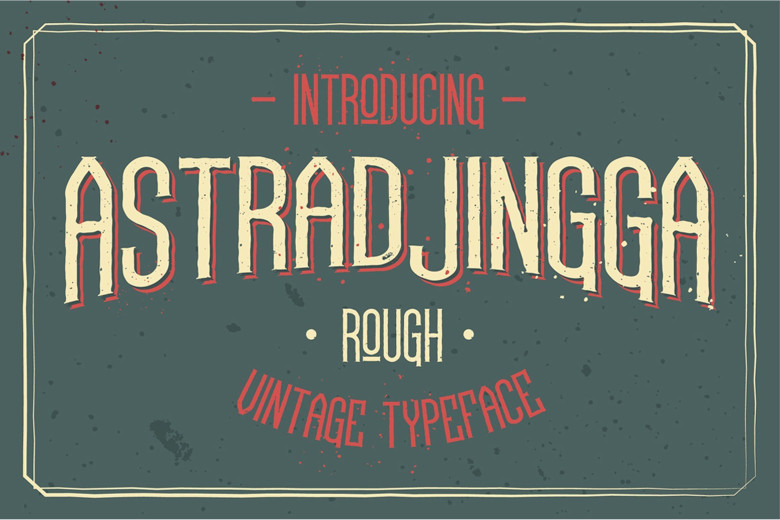
Astradjingga Rough Font
AstradjinggaRough is a vintage font thin, rough and character. Rough Astradjingga very suitable for making design themed vintage, retro and whatever themed custom culture. Suitable for logo, product names packages, labels, old fashioned coffee shops, bars and everything with specific characteristics of past times. Astradjingga is great combine to create something good and vintage feel